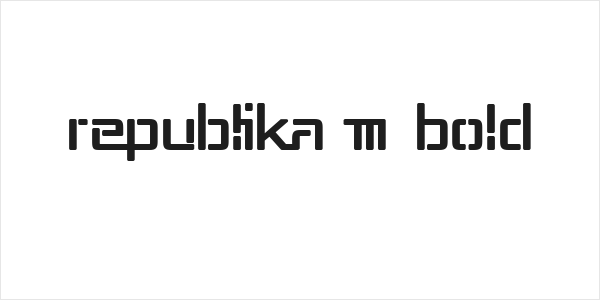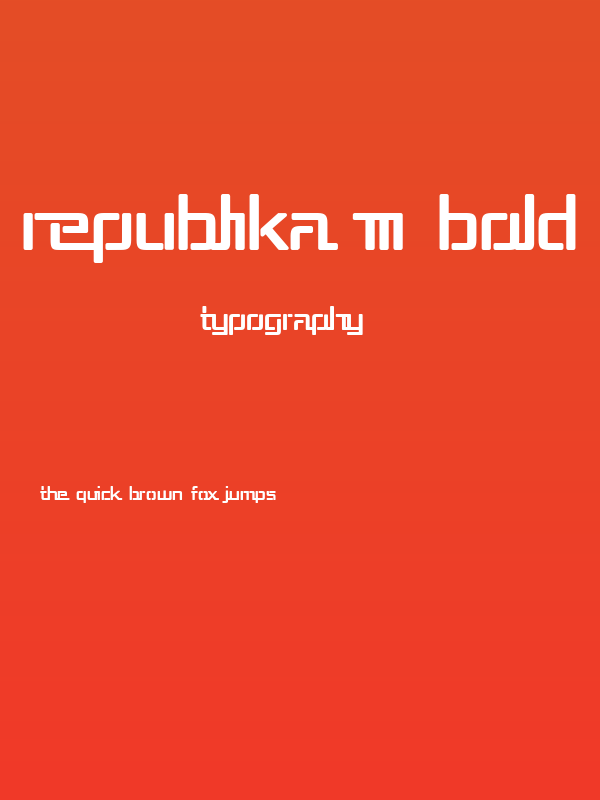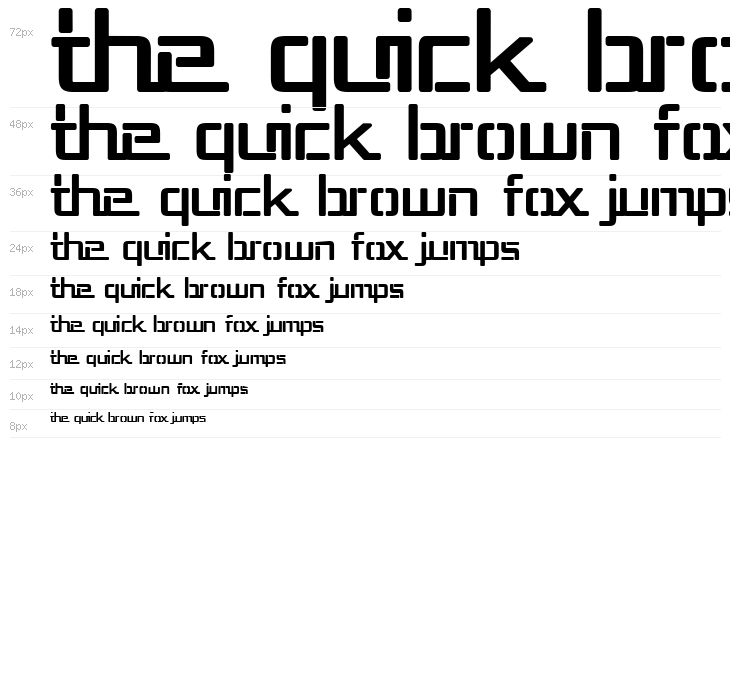
Republika III Bold Font
Republika III Bold Description
This font features a bold, geometric design with a futuristic aesthetic. The characters are constructed with a consistent stroke width, giving it a uniform and cohesive appearance. The angular shapes and sharp edges contribute to its modern and tech-inspired look. The font maintains a balance between readability and style, making it suitable for various digital and print applications. Its distinct, blocky form is eye-catching and can be used to create a strong visual impact. The numerals and special characters are designed to match the overall style, ensuring a seamless integration across different uses.